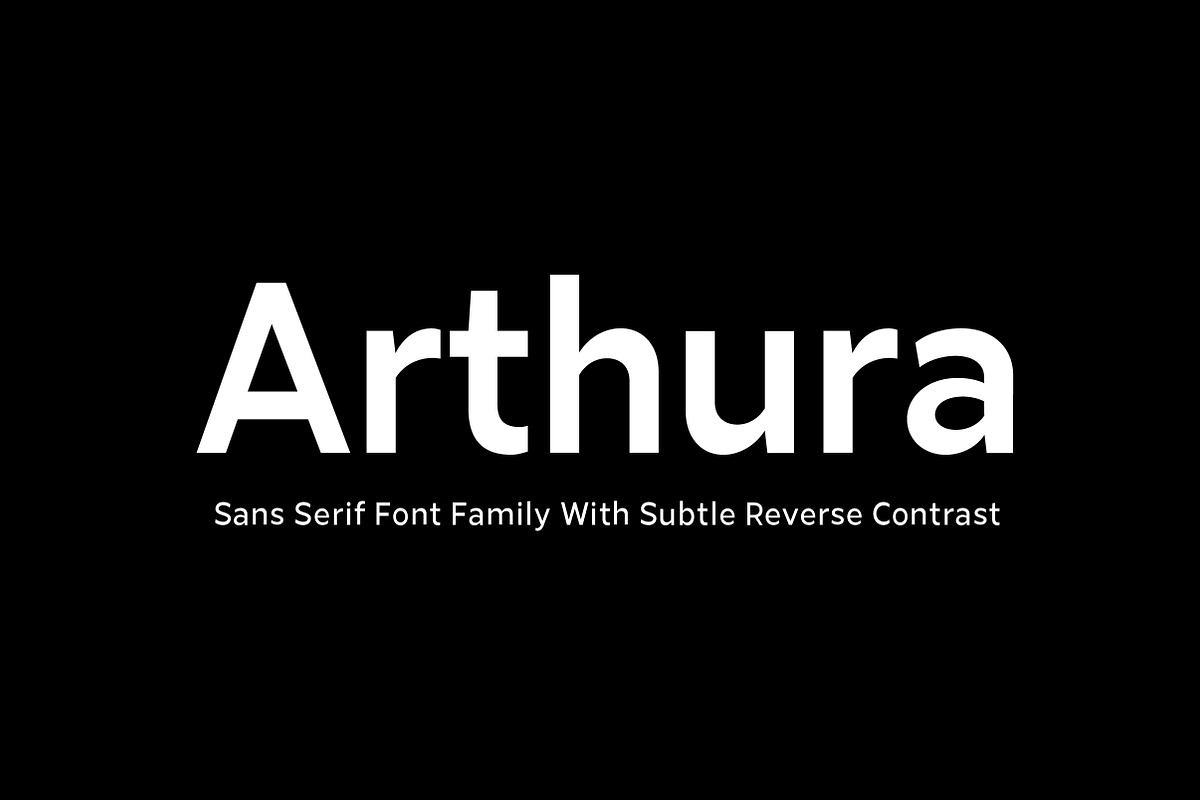
Arthura Font Family Free Download is a versatile and elegant font family designed to bring both professionalism and style to any project. With a combination of different weights and styles, this family is perfect for branding, logos, editorial design, websites, and print materials that require both sophistication and readability.
Arthura Font Family Free Download offers clean lines, a refined design, and excellent legibility, making it an ideal choice for both large headlines and smaller text. Whether you’re designing for corporate, lifestyle, or creative industries, this font family adapts effortlessly to your needs.